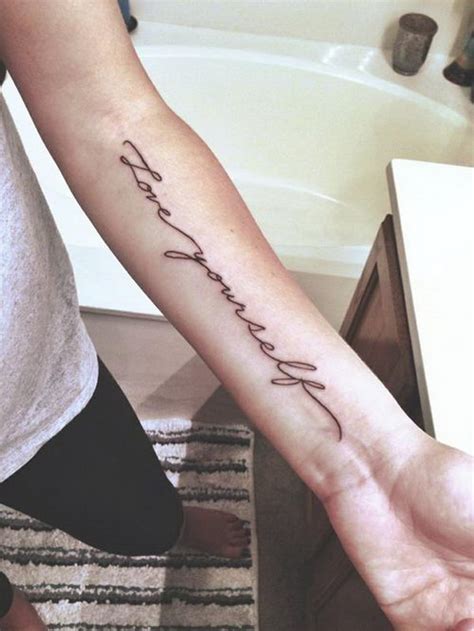
Cursive Font Tattoo, You get a classy curvy tattoo if you choose cursive fonts for tattoos. Letters may be joined or unjoined.
The girly tattoo cursive font isn’t so much as girly as it is classic and ornate. Use elegant fonts to make a statement, in logos, headlines, or other short pieces of text. Tattoos letters and fonts symbols & emoji.
Why you should use cursive tattoo fonts. For memorial tattoos, cursive fonts are preferable choices for example a name. (1) first, start typing some text in the input box above. Cursive typefaces are likewise not included in any standardised font sets, making copying and pasting problematic.
You get a classy curvy tattoo if you choose cursive fonts for tattoos. This is mainly because that cursive letters has an elegant, flowing appearance. The cursive handwriting style is functional and intended to be used for everyday writing. Explore 65 stunning cursive tattoo fonts to download and find the perfect match that fits your next web and print design.
Cursive is no longer taught in many schools (it is thankfully making a comeback, however). Professional tattoo artists actually do have this as an option for their tattoo fonts. Cursive typefaces are likewise not included in any standardised font sets, making copying and pasting problematic. Using our cursive generating tool is a breeze. Whether branding initiatives or seasonal marketing campaigns,.
Check out our collection, new designs are added every day. Beattingvile is a beautiful cursive font with stylistic alternates. See more ideas about cursive tattoos, tattoo fonts, tattoo lettering. Cursive fonts mimic the style of human penmanship where the letters flow together. Tattoo is all about text and pictures in body art.
Lovely home is a casual script font with a vintage feel and look. Why you should use cursive tattoo fonts. Regardless of whether you want a simple cursive tattoo script or a more complex and heavy one, there are plenty of cursive tattoo fonts to choose from. Revalina thin script font (otf, ttf, woff) Cursive font generator is the finest.
Lovely home is a casual script font with a vintage feel and look. See more ideas about cursive tattoos, tattoo fonts, tattoo lettering. This style is diverse because it influences the personal preferences, eras of time, and regions of the world. These are cursive tattoo fonts that create an impact in typographic designs. You get a classy curvy tattoo if.